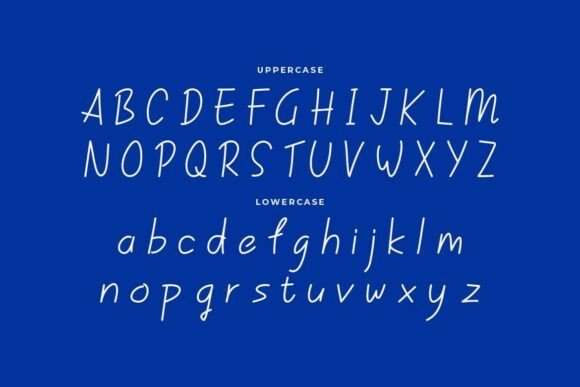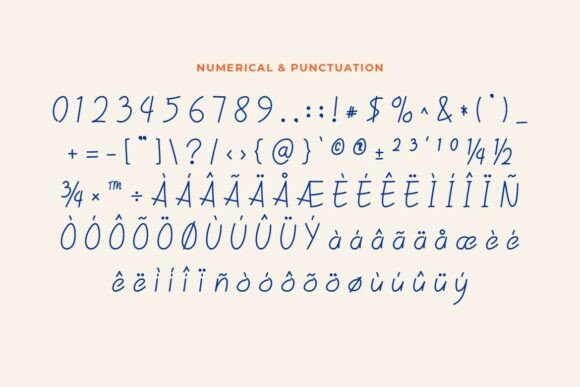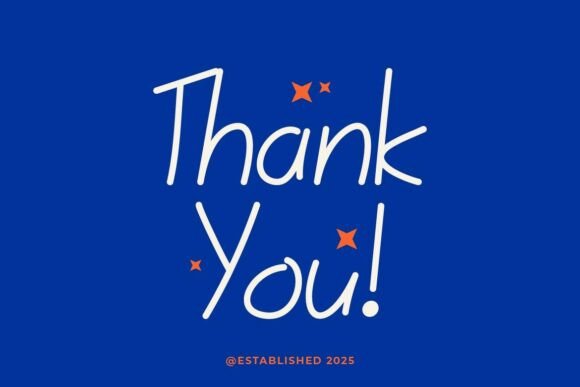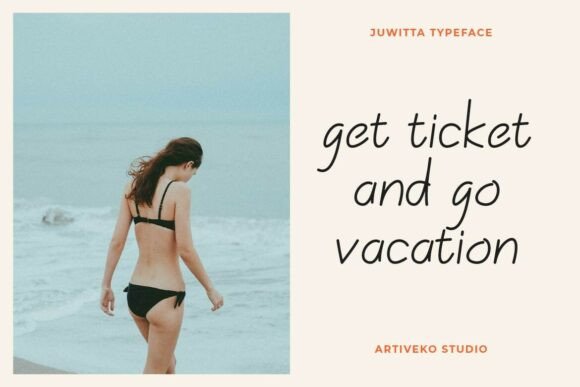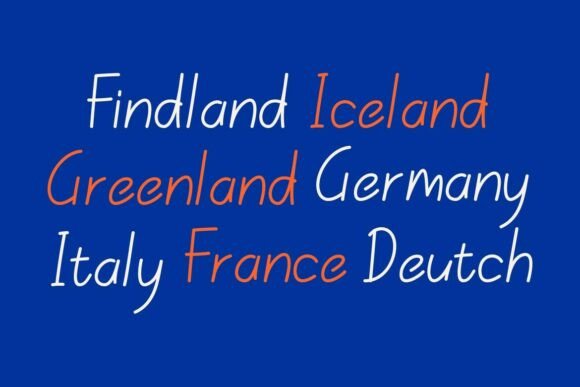
Introduction to Juwitta Font
Juwitta is a graceful handwritten font that combines gentle curves with expressive strokes, giving your designs a personal and artistic feel.
With its flowing rhythm and naturally imperfect charm, Juwitta captures the beauty of authentic handwriting — perfect for feminine branding, invitations, social media quotes, product packaging, and creative lifestyle content .
Key Features of Juwitta Font
Why Choose Juwitta Font?
Juwitta Font offers exceptional quality and versatility, making it a valuable addition to your design toolkit. Whether you’re creating for personal projects or commercial use, Juwitta Font delivers professional results.